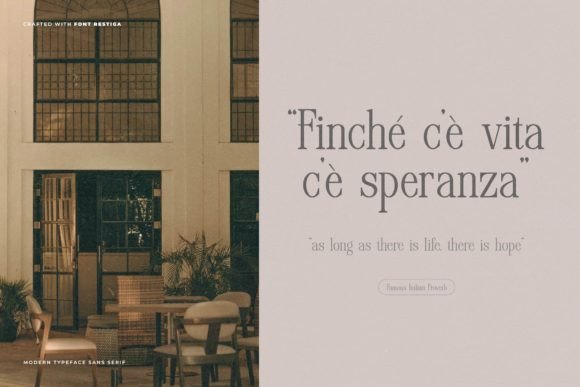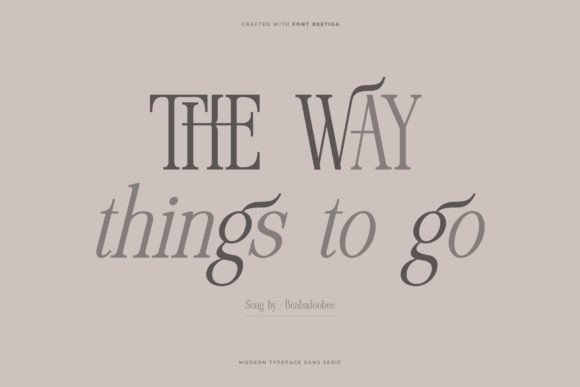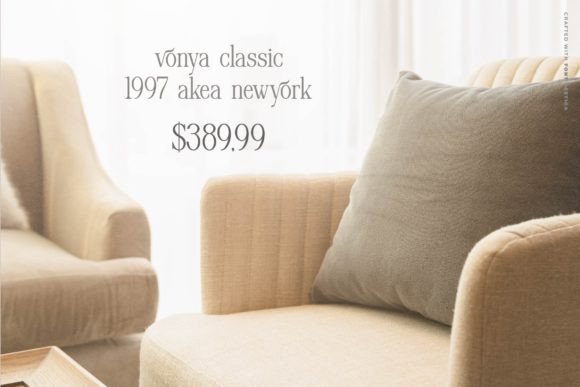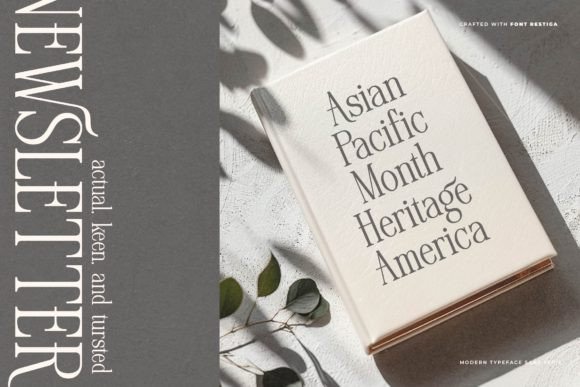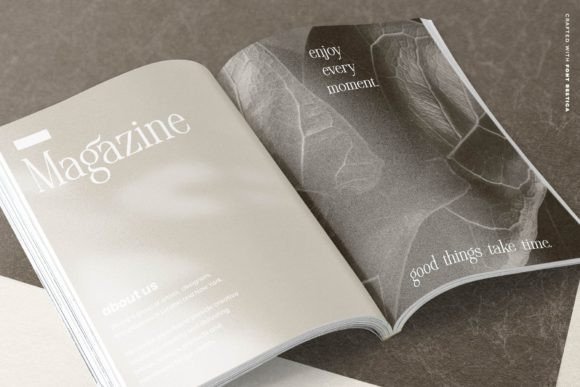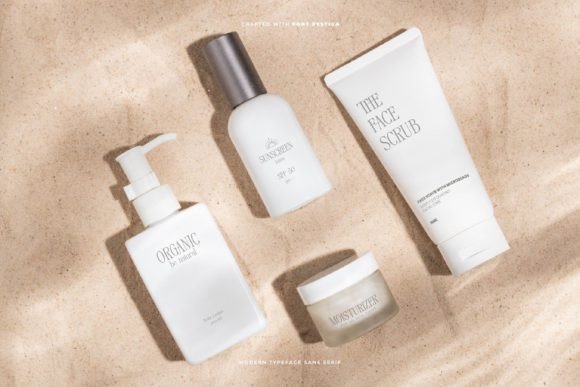
Introduction to Restiga Font
Remember that moment when you’re working on a creative project and the perfect font is all that’s missing? The one that elevates your design from good to great? For many designers, that moment is a reality, and it’s what makes the discovery of a great font so exhilarating. Today, we’re excited to introduce you to Restiga Font, a modern serif typeface that’s about to become your new go-to design resource.
With its clean, stylish letters and small decorative details on the edges, Restiga Font combines a classic look with a contemporary feel, making it suitable for both elegant and trendy designs. Whether you’re working on a project with a transparent background or need a high-quality font for a free download, Restiga Font is the perfect choice. Its versatility and sophistication make it a valuable asset for any designer looking to take their work to the next level.
Key Features of Restiga Font
- High-quality design resource suitable for various creative projects, including graphic design, digital art, and publishing.
- Transparent background allows for seamless integration with various backgrounds, giving designers flexibility in their creative projects.
- High-resolution font with a large character set, ensuring crisp and clear text display at various sizes and resolutions.
- Unique and stylish design, making it an ideal choice for designers seeking a distinctive look for their creative projects.
Honest Review: Restiga Font
I recently stumbled upon the Restiga Font while searching for a free design resource to use in a creative project. I was drawn in by its sleek and modern design.
Here are some things that work well about the Restiga Font:
- ✨ The font has a transparent background, making it easy to layer and combine with other design elements.
- ✨ The high-quality design is perfect for any creative project, from graphic design to digital art.
However, there are a few limitations to the Restiga Font that I’d like to mention:
- ⚠️ The font is not available in as many weights and styles as I would have liked.
Overall, I’m really impressed with the Restiga Font. While it has some limitations, its high-quality design and free download option make it a great resource for designers working on creative projects.
The Restiga Font is a versatile design resource that can be used for a variety of creative projects, such as logos, brochures, and business cards. Its high quality and transparent background make it ideal for use on images or videos.
Tips for Getting the Most Out of Restiga Font
To get the most out of the Restiga Font, use it in conjunction with a transparent background to create a clean and modern design. You can also experiment with different font sizes and styles to add visual interest to your project.
Restiga Font is designed to be a high-quality design resource, perfect for creative projects that require a unique and stylish font. With its transparent background and clean lines, Restiga Font is ideal for use in logos, branding materials, and other visual identity projects.
Q: What is the recommended font size for Restiga Font?
The recommended font size for Restiga Font varies depending on the application and the desired level of legibility. As a general guideline, we recommend using font sizes between 12pt and 48pt for body text, and larger sizes for headings and titles.